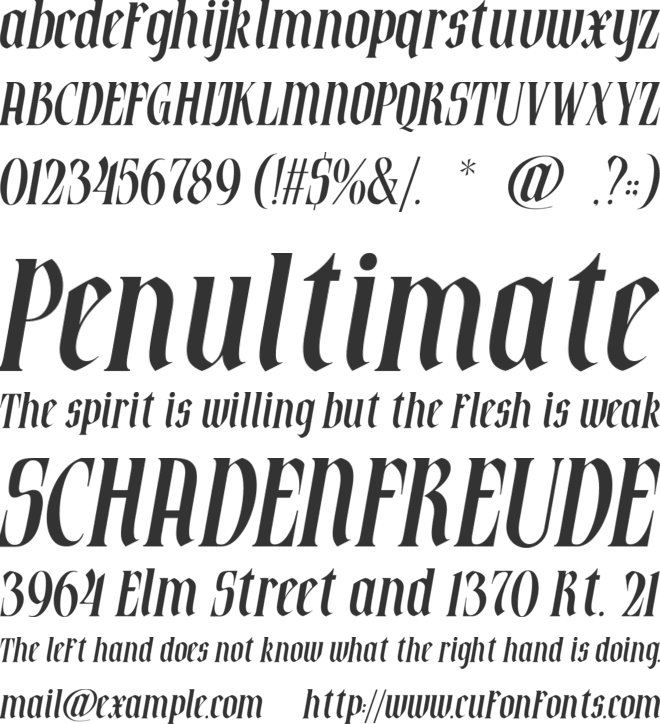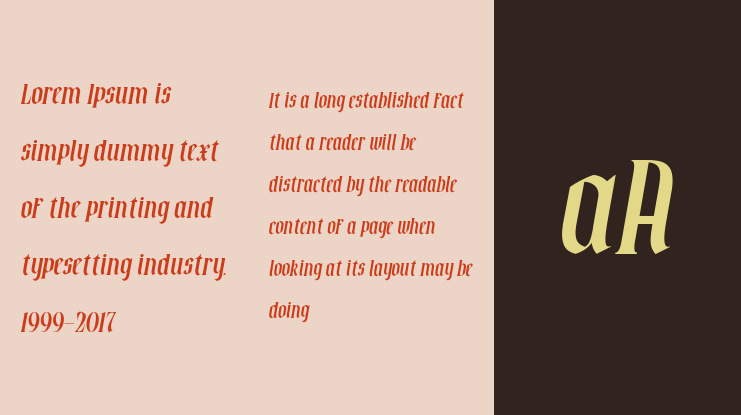
Bromora Font
🖋️ Bromora Typeface: Modern Gothic Blackletter
Unleash the raw power of ancient myth and modern street culture with Bromora Typeface, a stunning modern gothic blackletter font. Designed for high-impact branding, dark street fashion, elaborate titling, and sophisticated editorial design, Bromora is more than just a font—it's a statement.